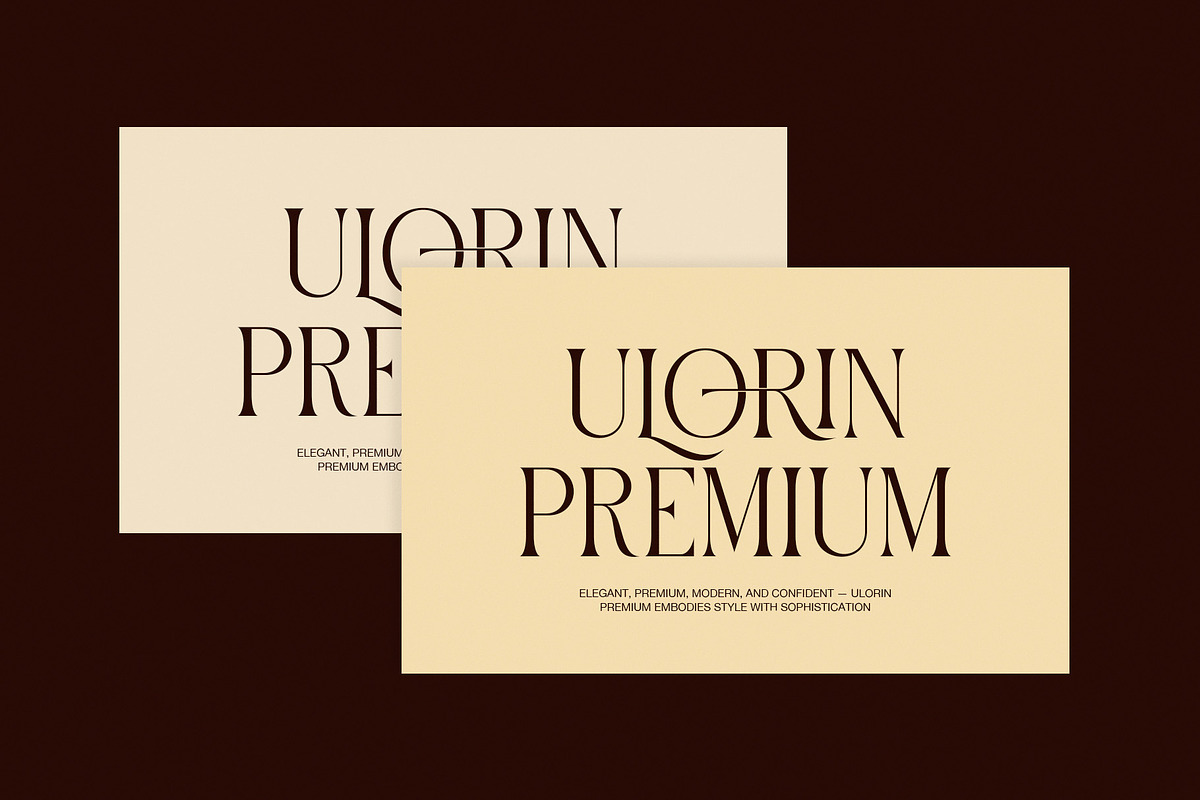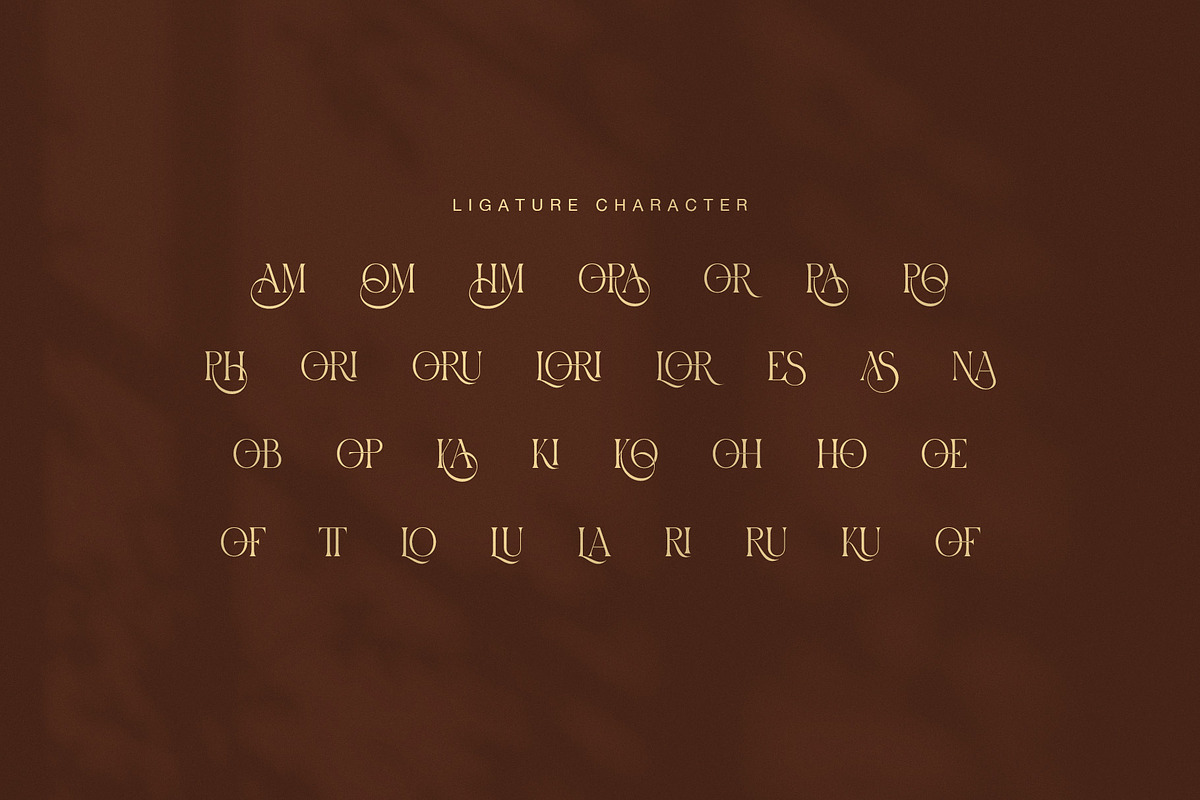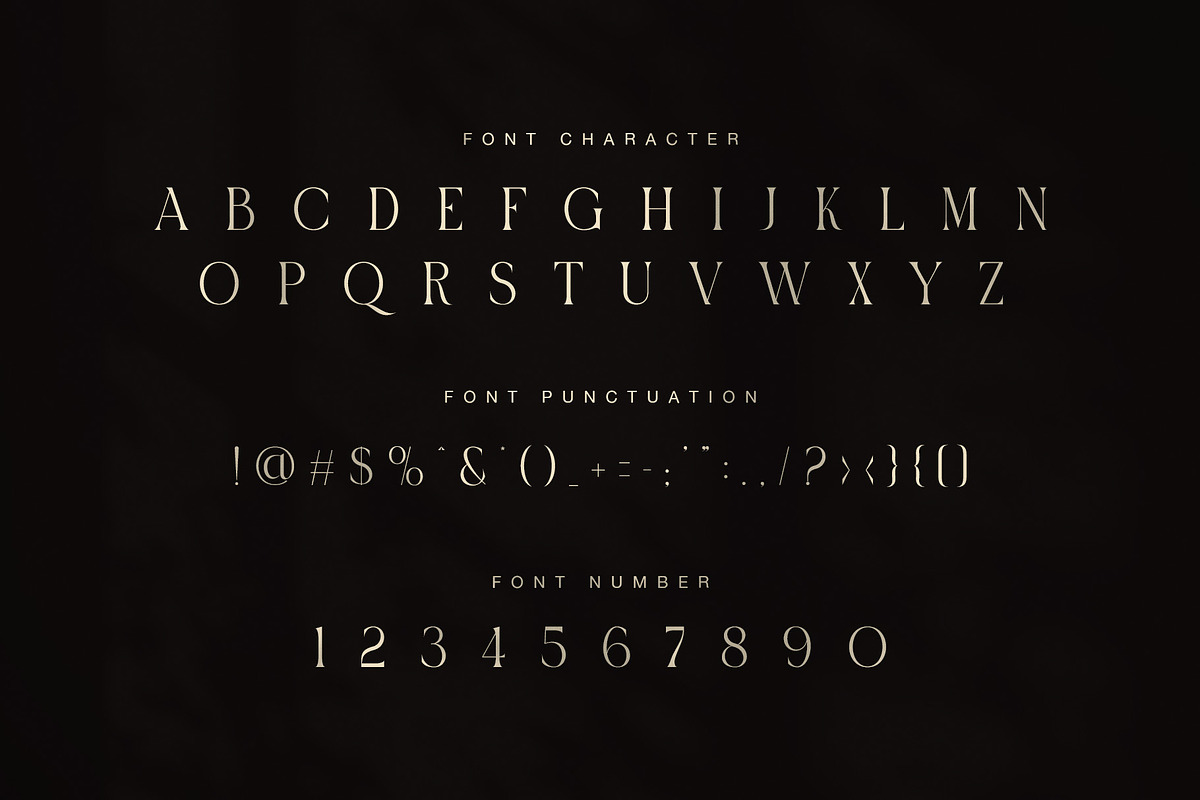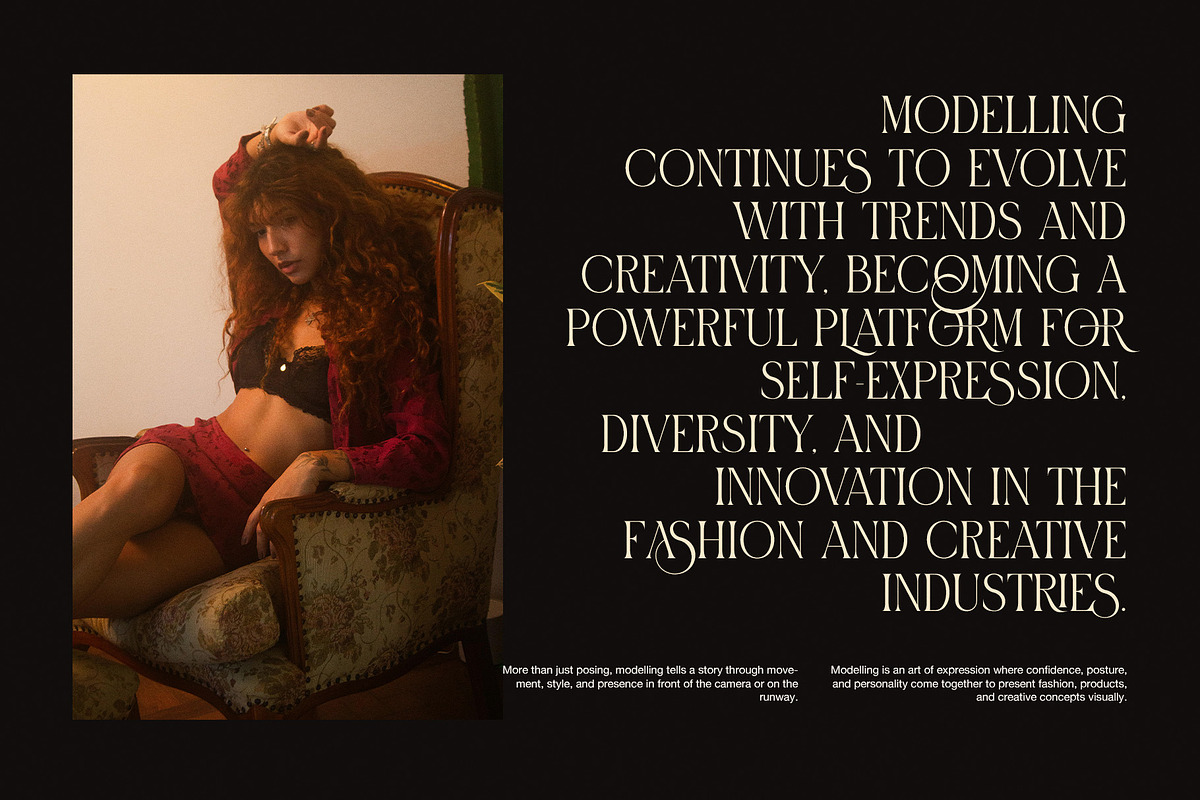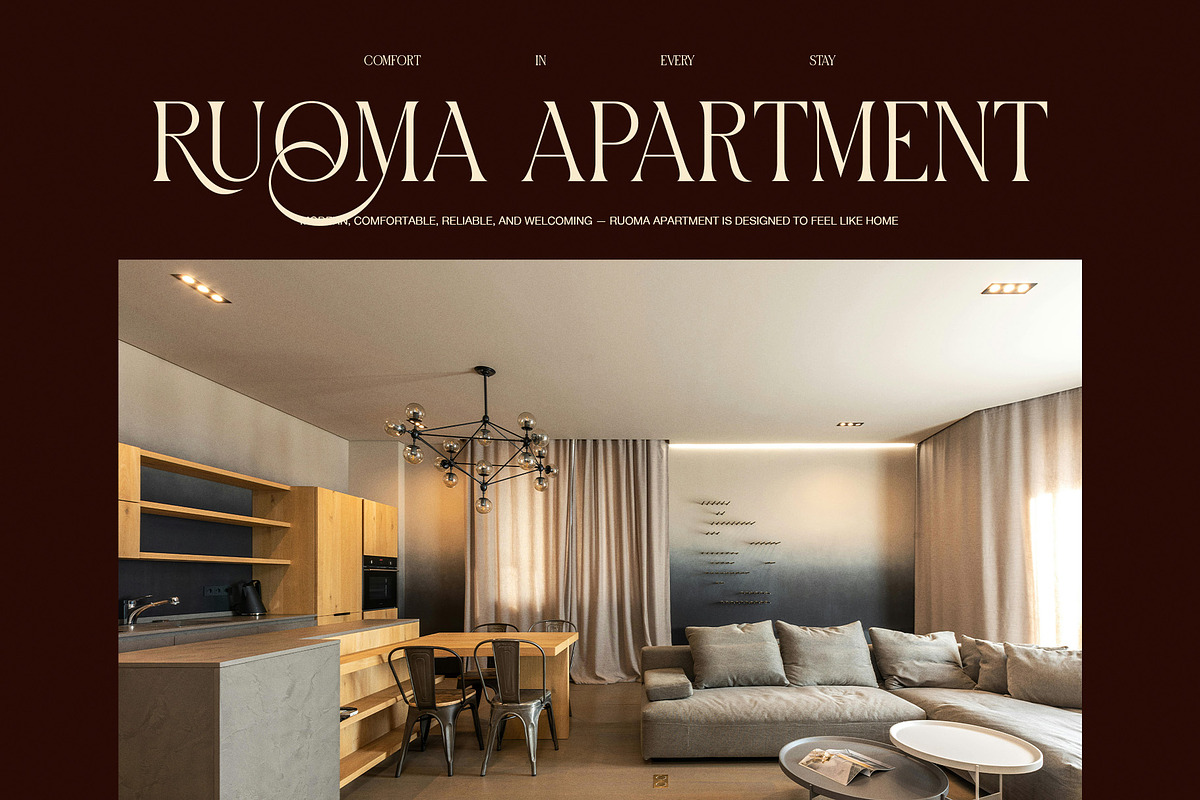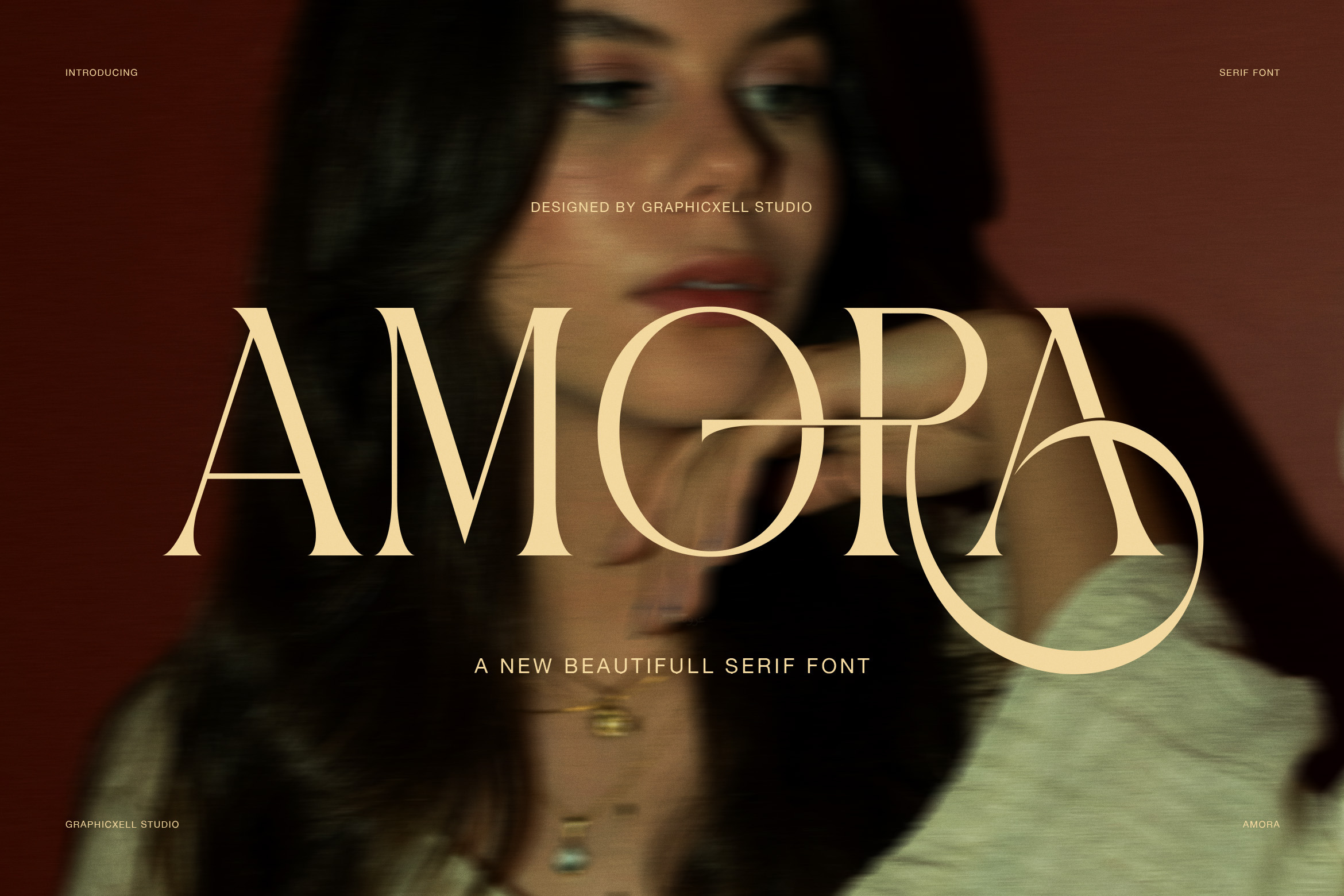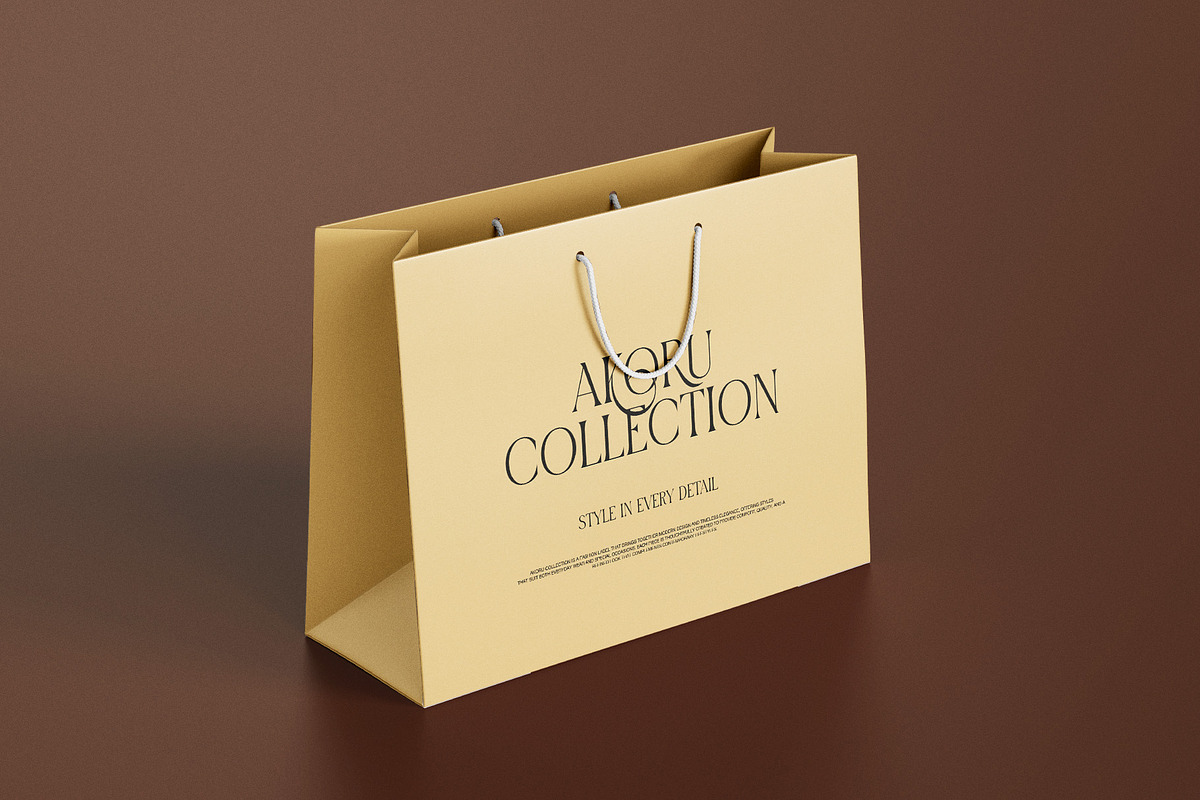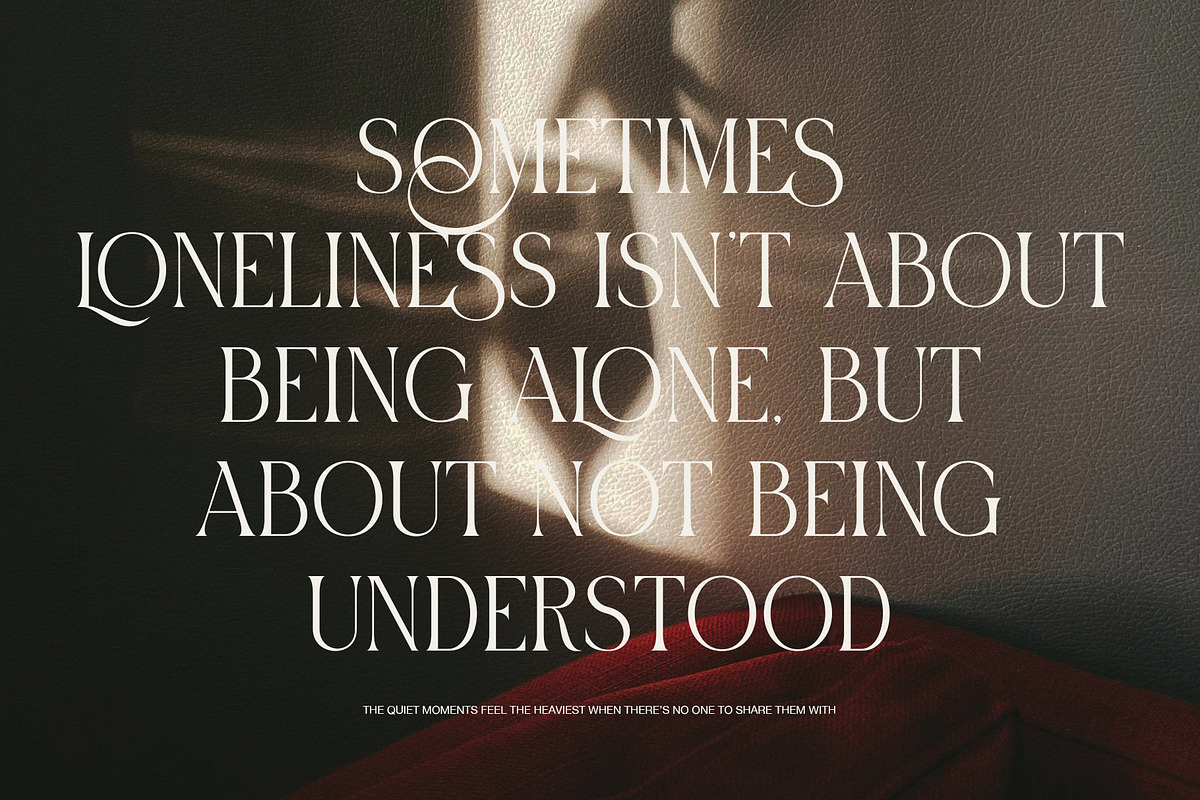
Amora Elegant Serif Font
Amora Font Style
Amora is an elegant serif font with a soft luxury feel and a strong fashion voice. It blends thin lines, tall letterforms, and smooth curves into a style that feels refined, modern, and calm. At first glance, this font stands out through its high contrast strokes. Thick and thin parts meet with grace, so each letter looks polished and stylish. In addition, the sharp serifs give the design a clean finish, while the rounded curves keep it warm and inviting.
Shape and Visual Character
The shape of Amora feels made for beauty, branding, and editorial design. Several letters have long sweeping tails and artistic ligatures, which add a custom look without losing readability. For example, the decorative forms in characters like O, R, A, and selected ligatures create a rich and memorable rhythm. Because of that, Amora feels both classic and fresh. It has a timeless serif base, yet it also carries a modern visual mood that fits today’s design trends.
Best Uses for Amora
Amora works very well in display settings where style matters most. It looks striking on large headlines, logo designs, product packaging, fashion posters, hotel branding, beauty labels, social media layouts, and luxury invitations. Moreover, it pairs well with clean sans serif fonts for body text, so designers can build balanced layouts with ease.
Here are some ideal uses for this font:
- luxury branding
- fashion editorials
- cosmetic packaging
- boutique logos
- wedding stationery
- apartment or interior branding
- social media quotes
- premium product labels
- Features and Benefits
Amora offers more than beauty alone. It also gives designers strong visual tools for brand identity. The full uppercase set looks graceful and clear, while the punctuation, numbers, and ligature options give more room for creative work. As a result, this font helps designs look more exclusive, stylish, and professional. Even better, it can turn simple words into a strong visual statement. If you want a serif font that feels elegant, feminine, premium, and artistic, Amora is a very fitting choice.